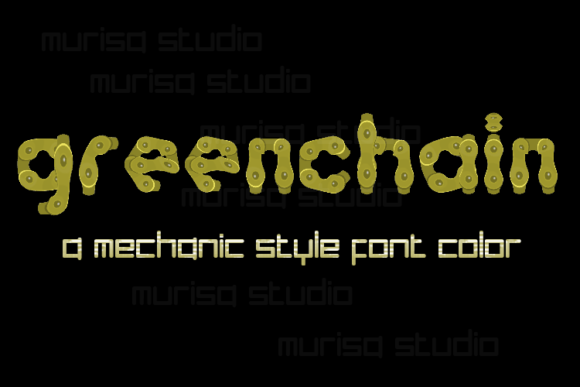
Allow us to introduce you to Greenchain Font, the ultimate color font that will ignite creativity and add a splash of charm to your next design project. Greenchain belongs to the captivating Colorful font family, renowned for its playful and vibrant nature. This font is not just a collection of letters; it's an artistic masterpiece that will transform your creative visions into captivating realities.
Unleash the playful side of your designs with Greenchain and let your imagination run wild. Whether you're working on a playful children's book, designing an enchanting invitation, crafting a cheerful social media post, or creating eye-catching headlines, Greenchain will add a touch of magic that will capture attention and leave a lasting impression.
Embrace the limitless possibilities with Greenchain, the font that will make your designs stand out from the crowd. Download it today and embark on an adventure of artistic exploration and captivating visual storytelling. Let Greenchain be your muse and let your creativity flourish like never before!